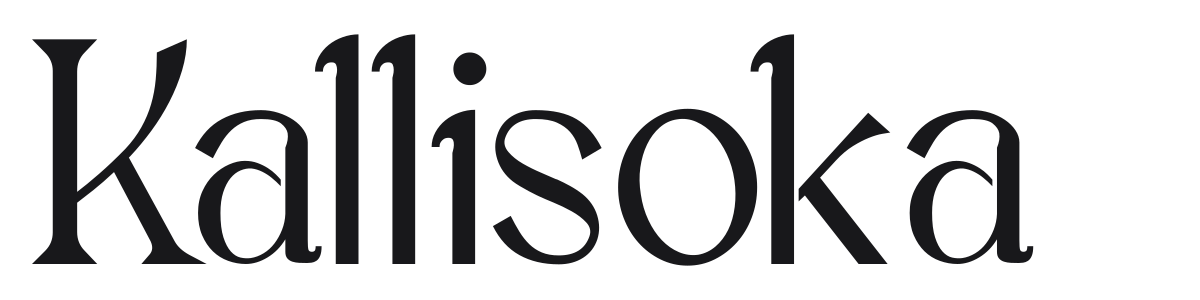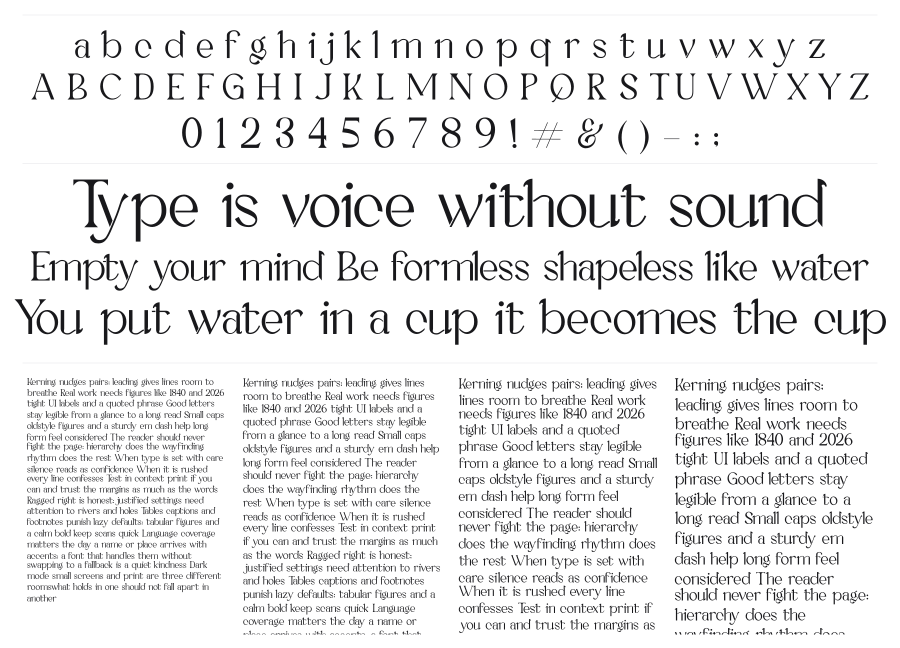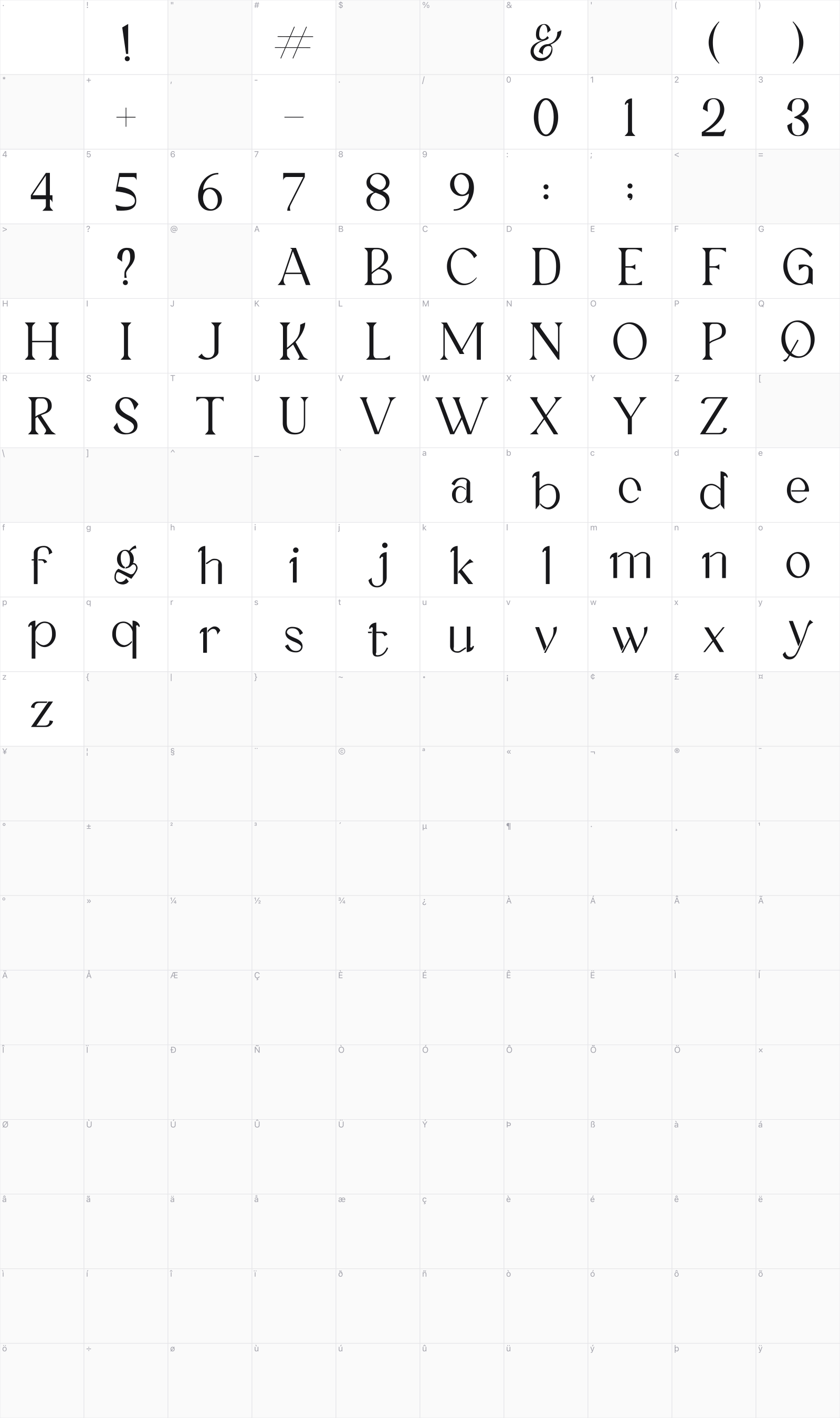
Kallisoka
Kallisoka is a high-contrast contemporary serif with pronounced tension between its hairline thins and robust stems. The wide, airy proportions and delicate bracketed serifs give it a refined editorial quality that sits comfortably in fashion and luxury contexts. It carries the DNA of classical Didone structure but with a looser, more modern sensibility.